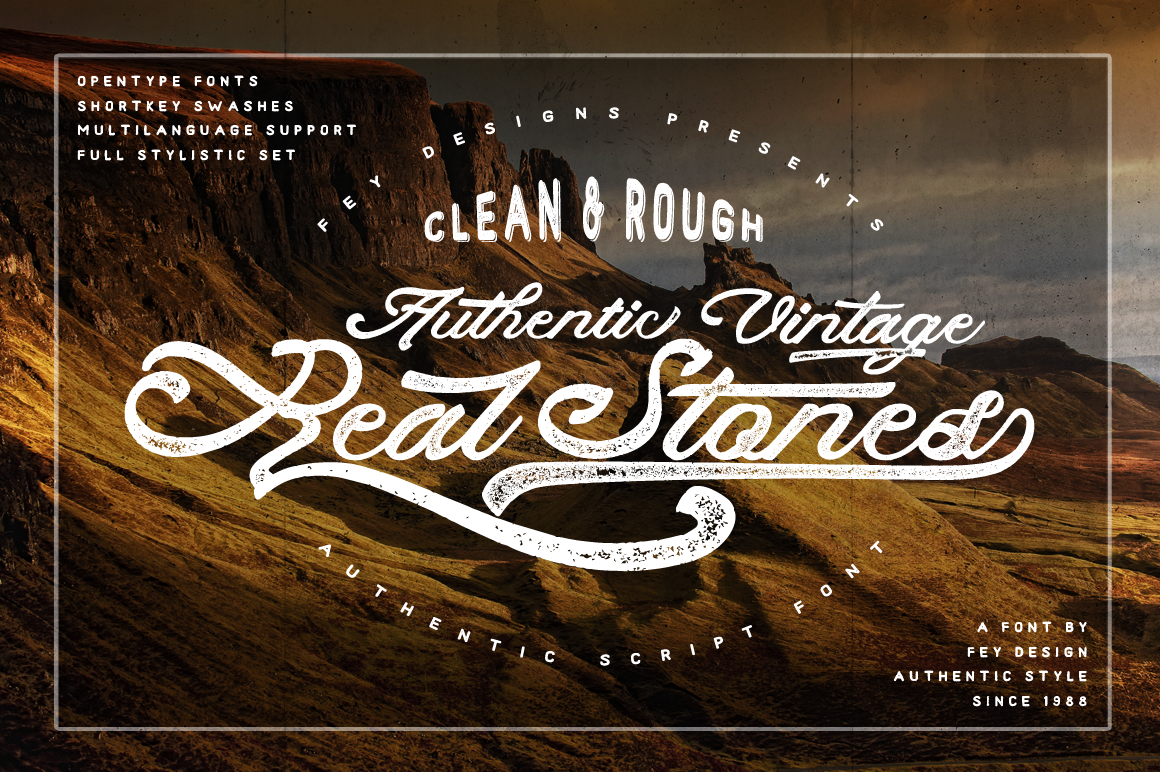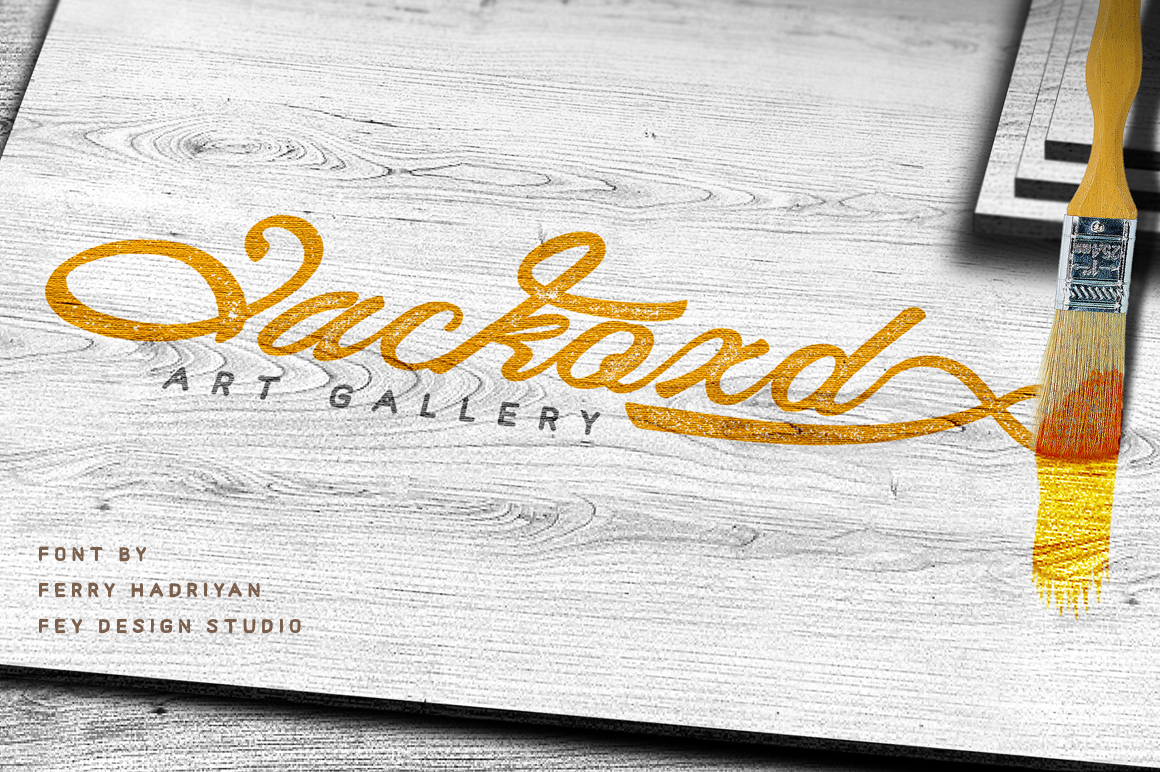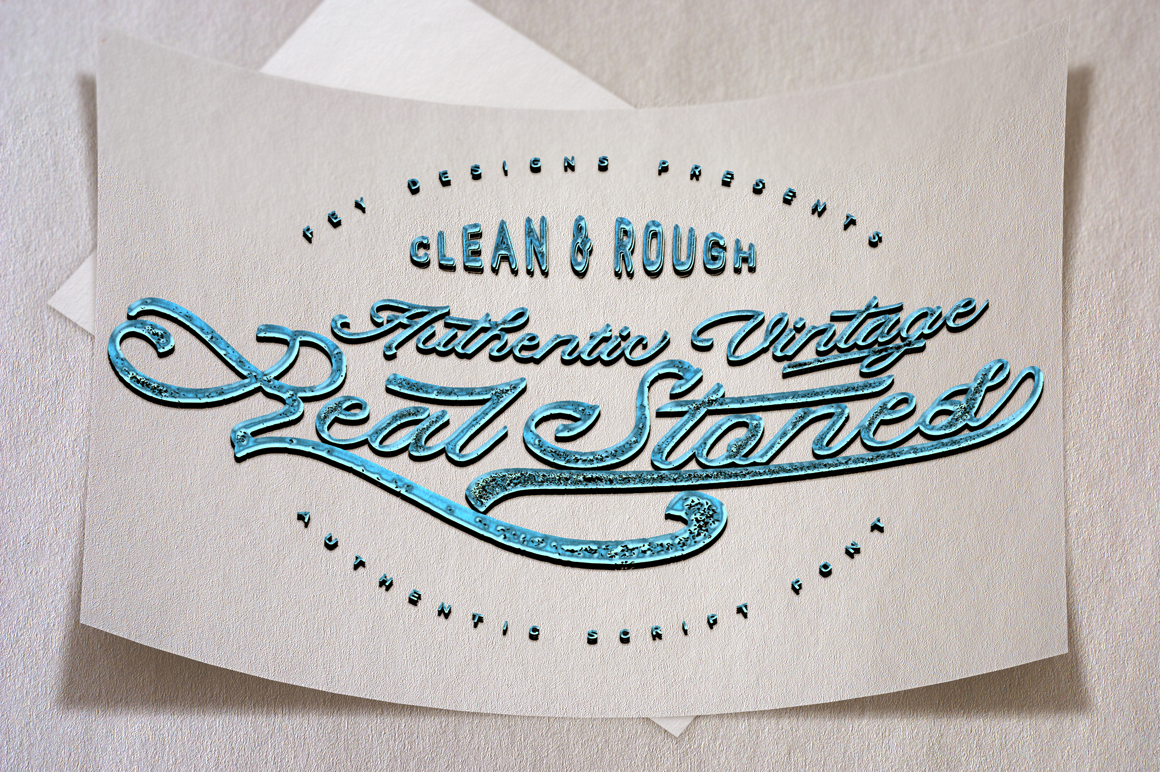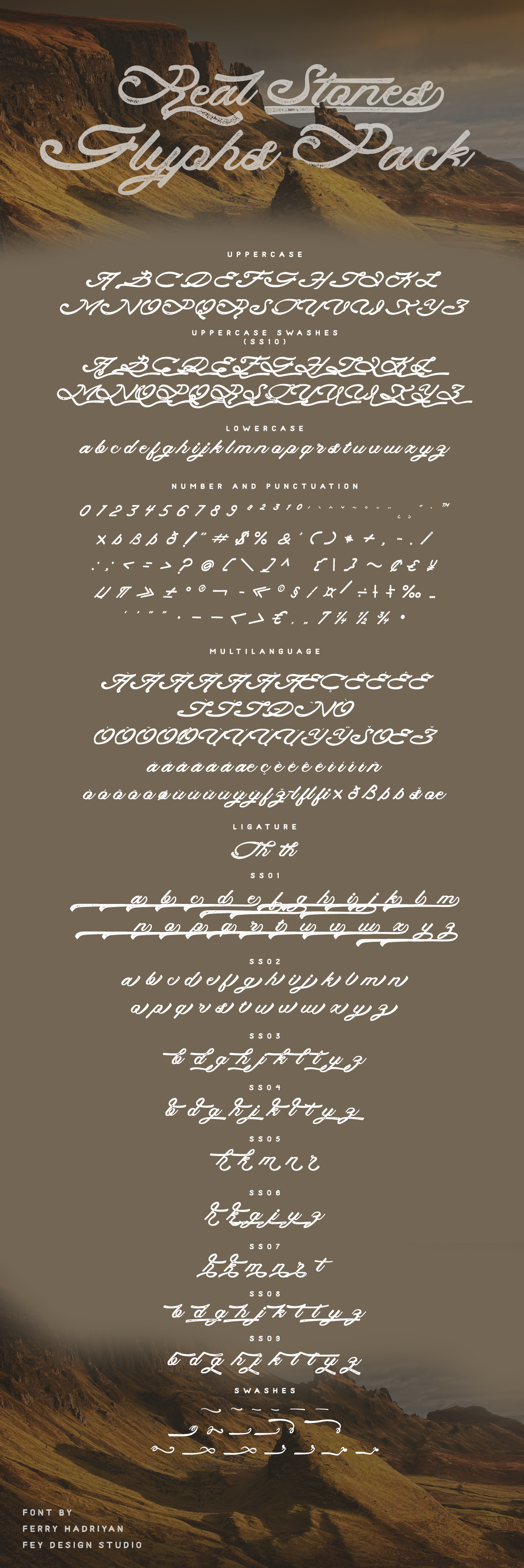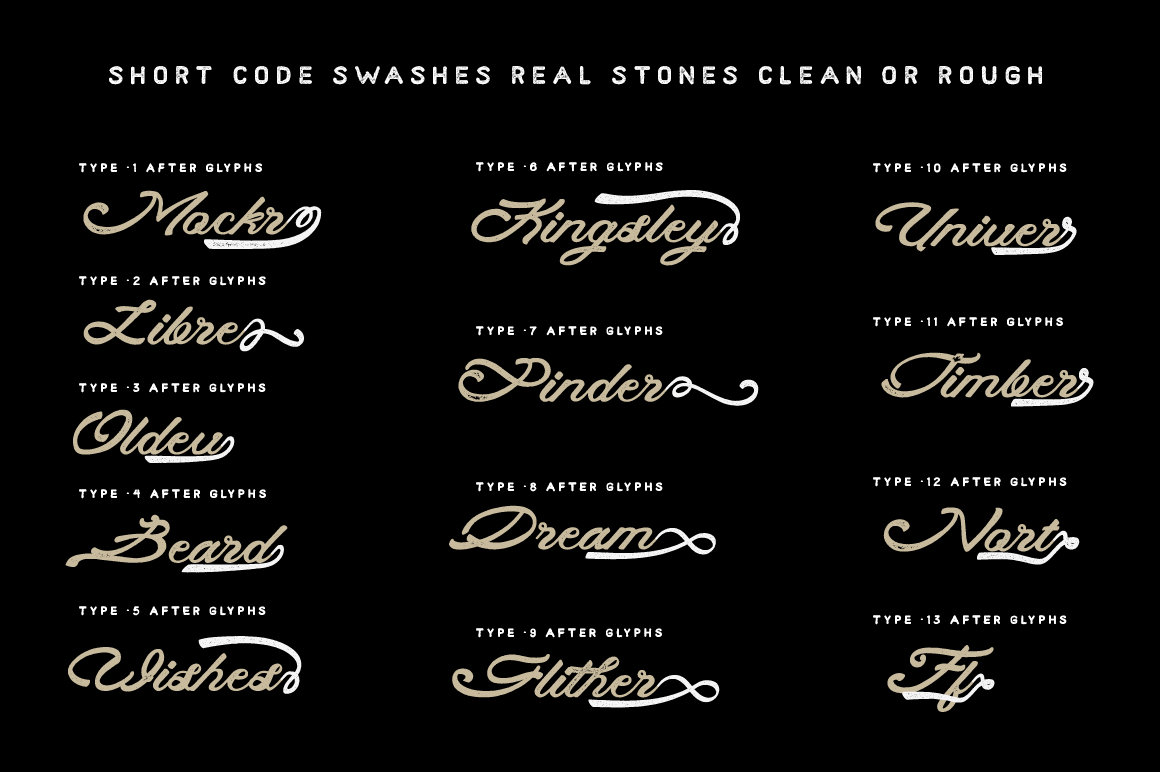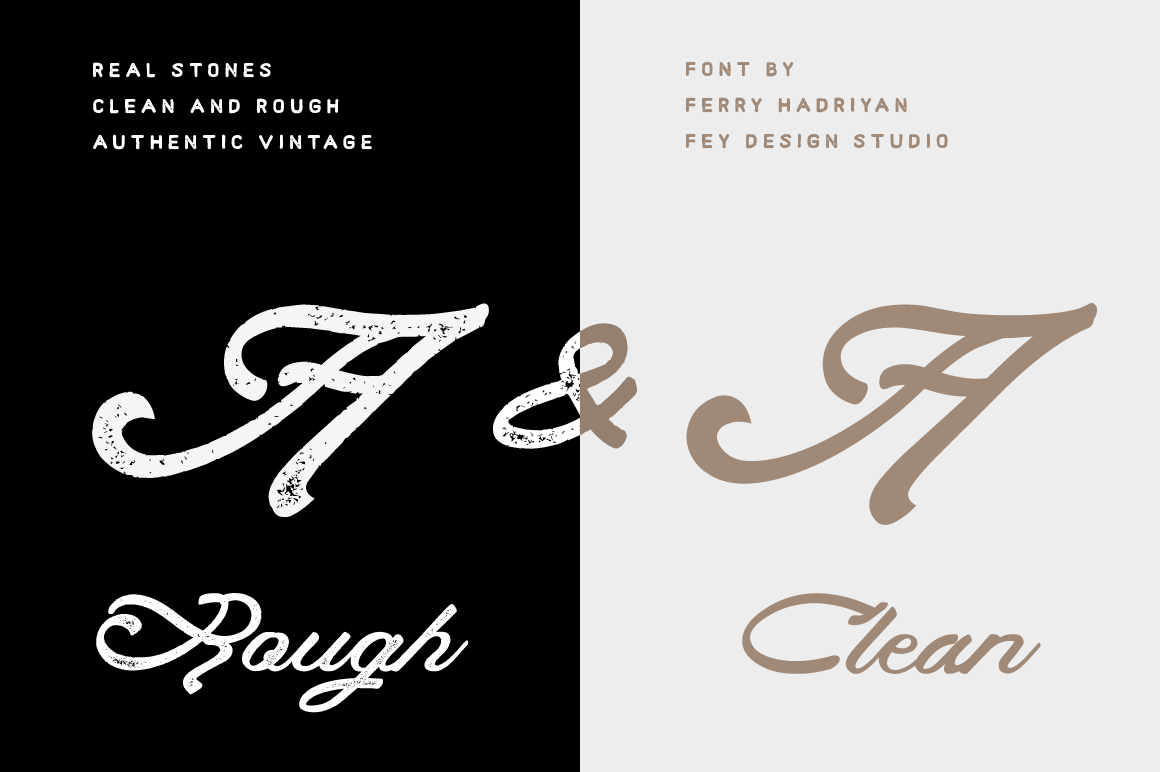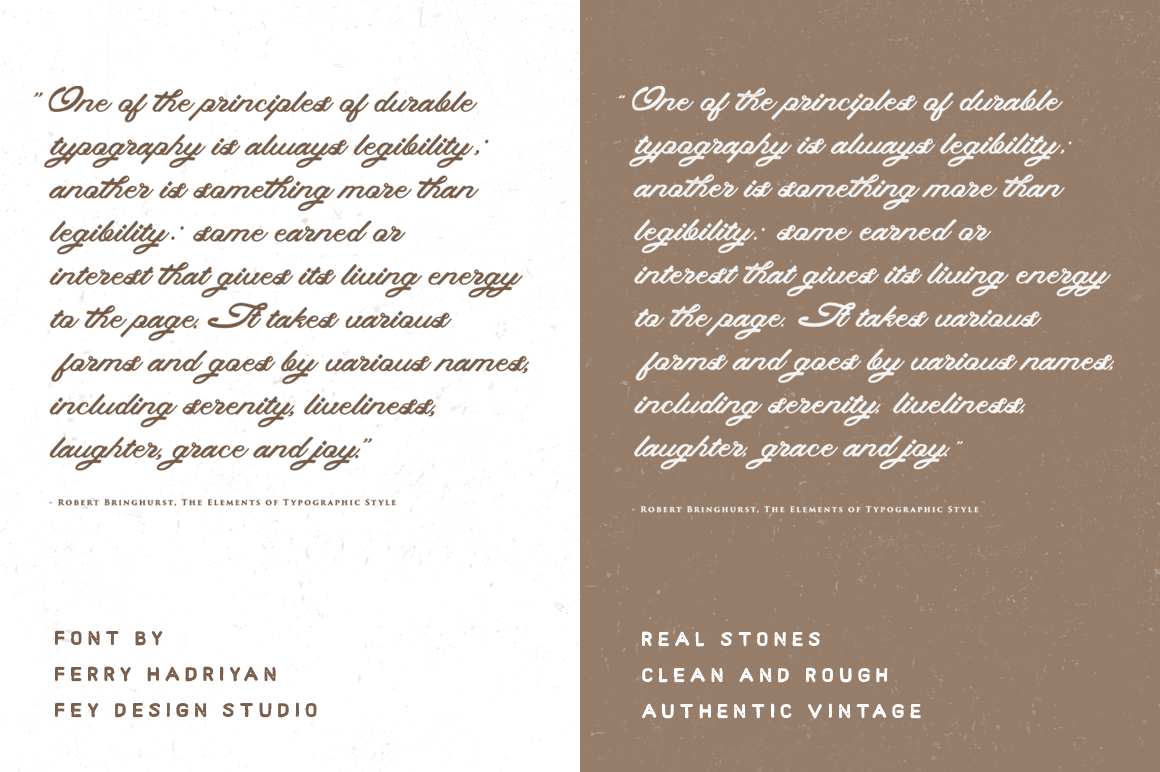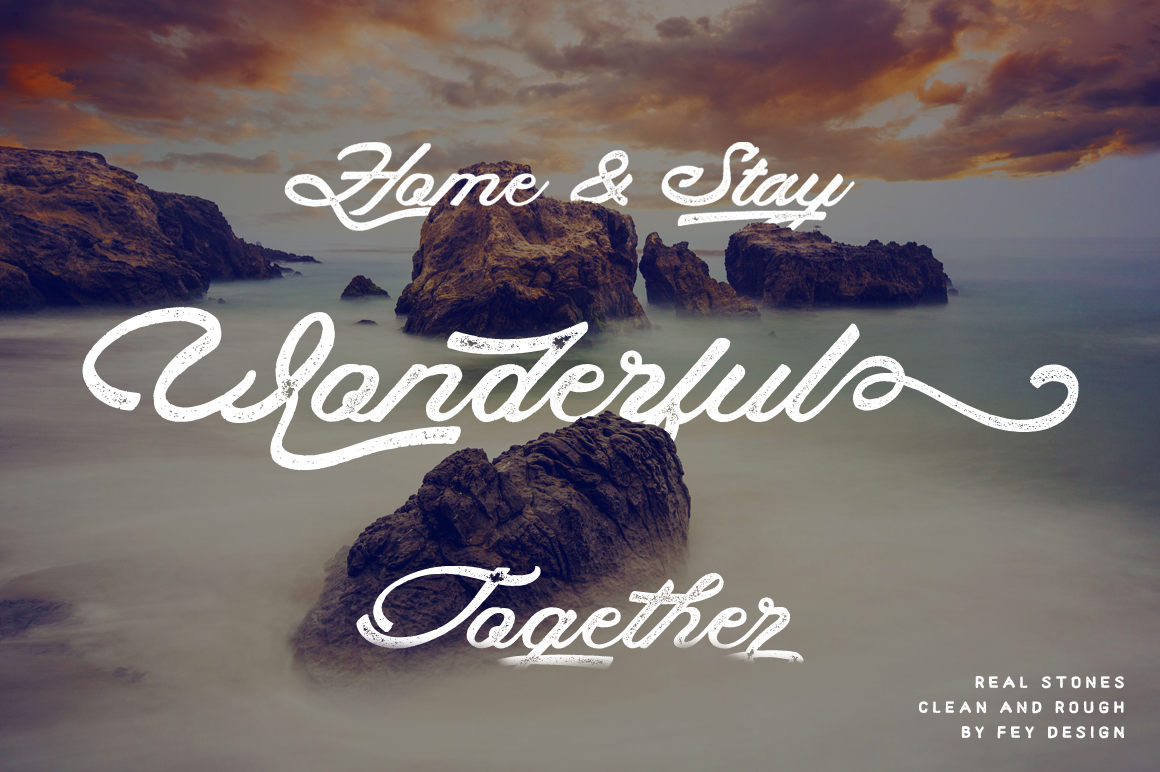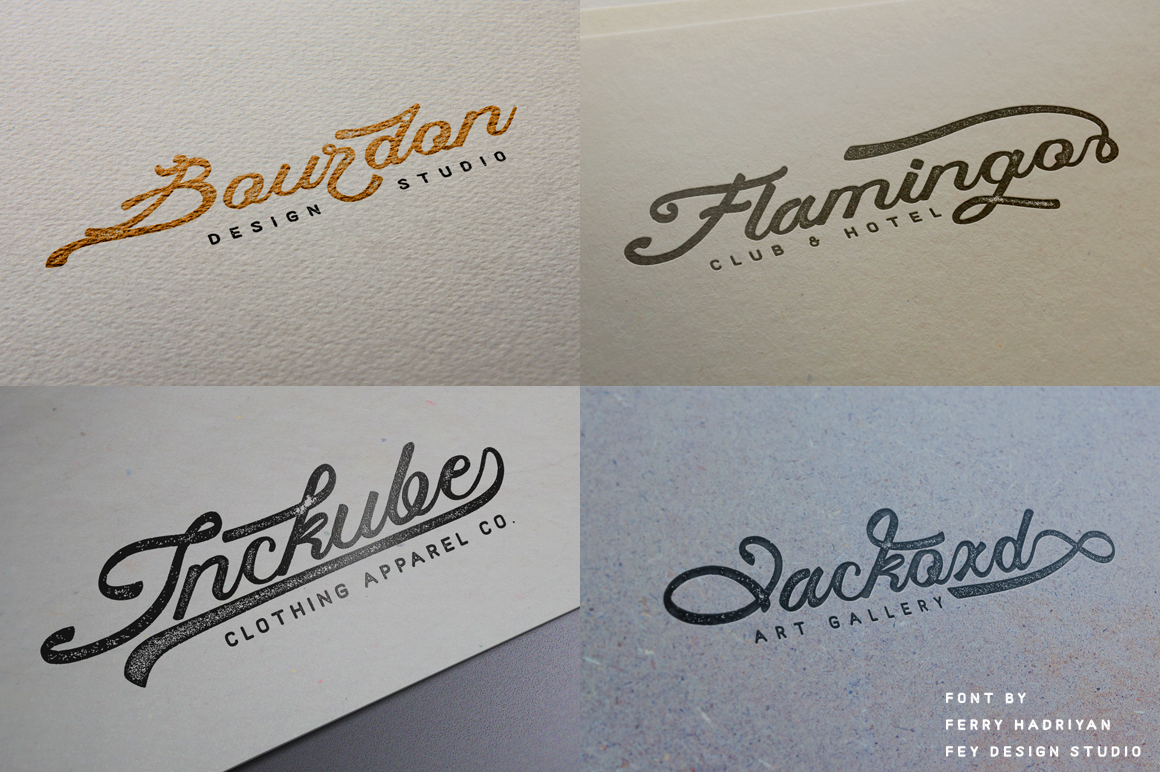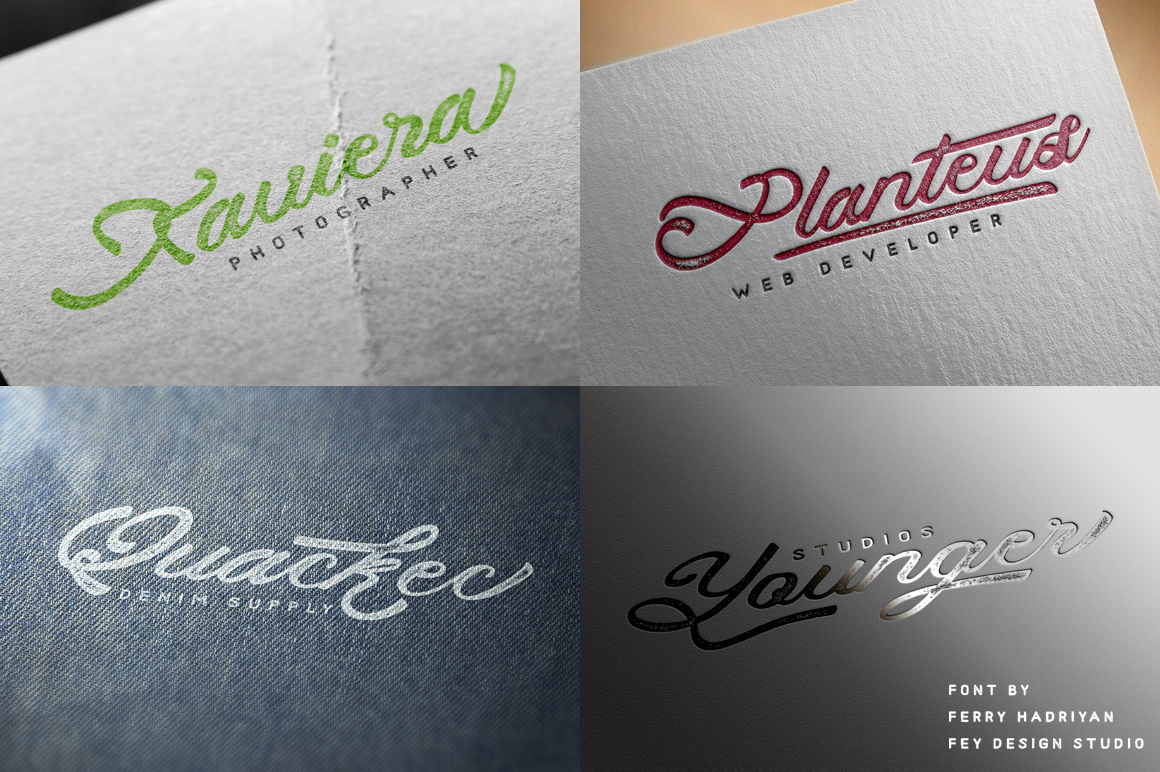
Real Stones Font
About Real Stones Font
Real Stones is a font that can carry a heavy load; with two styles – clean and rough – this font looks stellar in a wide range of designs and project types.